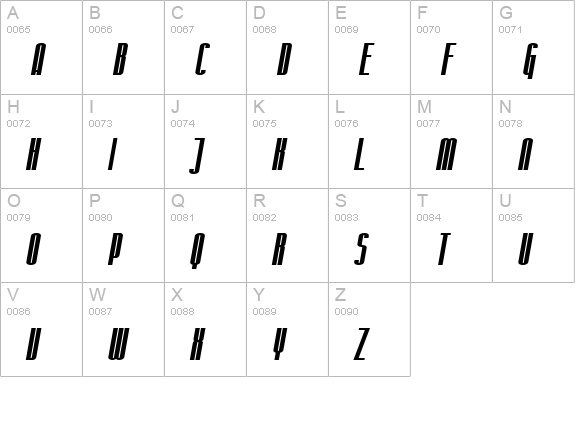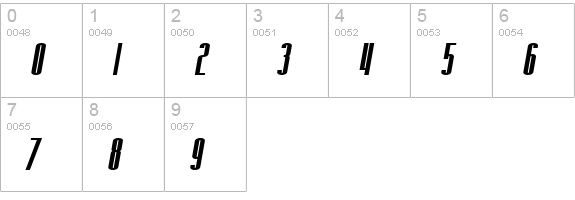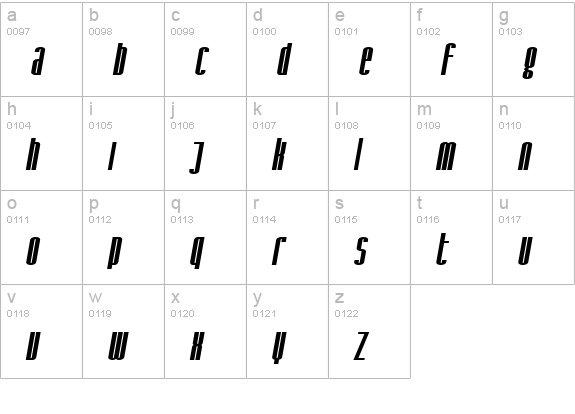
SF Iron Gothic Bold Oblique Font Details
SF Iron Gothic Bold Oblique is a strong, high-contrast, italic variant in the SF typeface family \xE2\x80\x94 well suited to headlines, attention-grabbing titles, and strong calls-to-action.
SF Iron Gothic Bold Oblique is a captivating font that combines the strength of iron with the elegance of gothic design. Its bold and slanted characters exude a sense of power and sophistication, making it the perfect choice for projects that demand attention and impact. This font is a true standout in the world of typography, with its unique blend of industrial strength and artistic flair. Its sharp angles and bold curves create a visual feast for the eyes, while its oblique slant adds an intriguing twist to each letterform. SF Iron Gothic Bold Oblique is not only visually striking, but also highly versatile. It can be used in a variety of design projects, from logo designs and branding materials, to headlines and posters. Its bold presence allows it to effortlessly command attention, while its gothic undertones add a touch of mystery and intrigue. What makes SF Iron Gothic Bold Oblique even more impressive is the fact that it is freely available to download at FontsMarket.com. This means that designers and creatives can easily access this stunning font without any restrictions, allowing them to unleash their creativity and bring their visions to life. Whether you're looking to make a bold statement or add a touch of elegance to your designs, SF Iron Gothic Bold Oblique is the perfect font to elevate your work. Its captivating presence and freely available download make it an essential addition to any designer's toolkit. So, go ahead and explore the endless possibilities that SF Iron Gothic Bold Oblique has to offer.